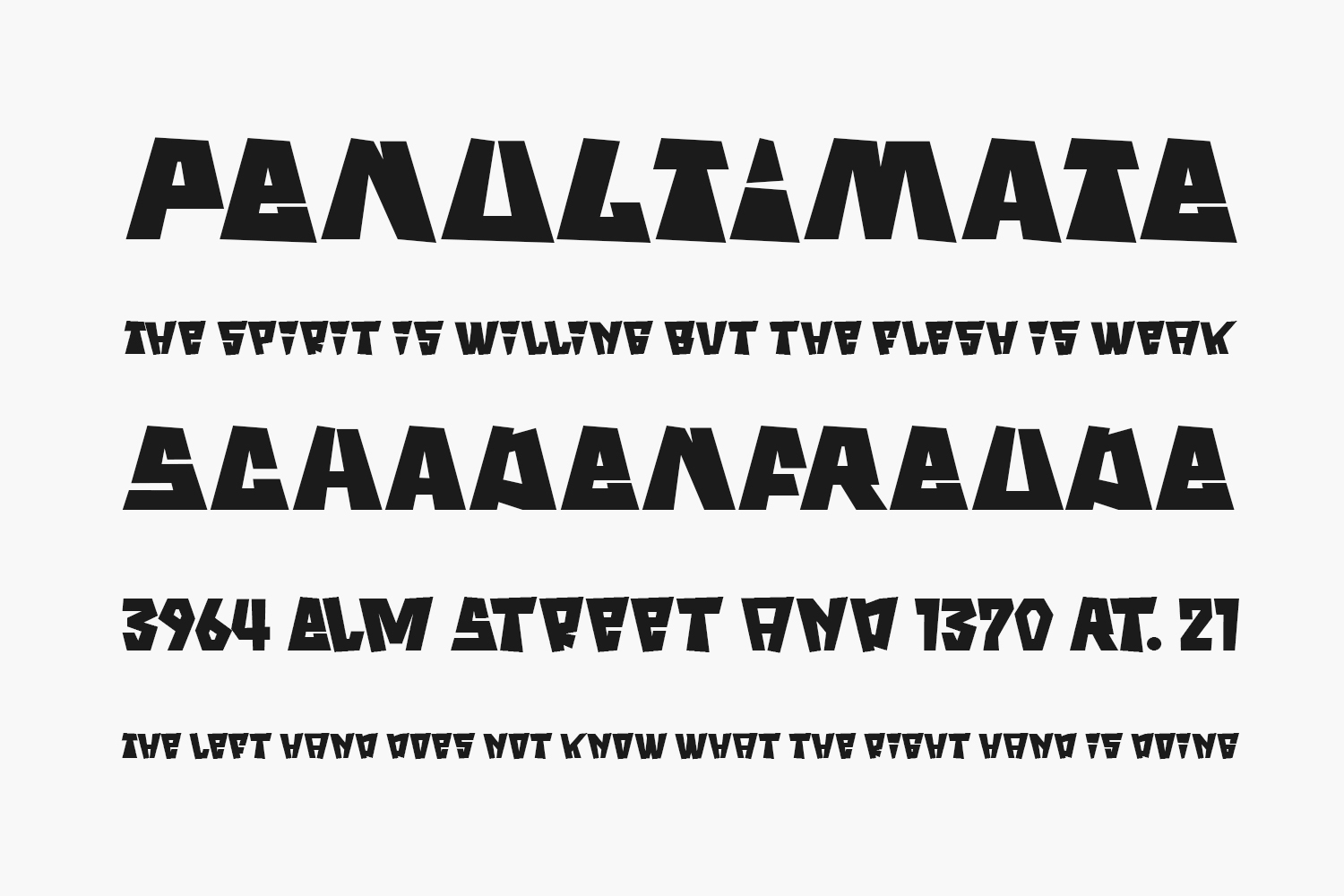
Stone Ocean Free Font is a bold and thick lettered display font. It embodies playfulness and authenticity and is the perfect choice for any children’s activity or school project. Stone Ocean Free Font was designed by Bangkit Tri Setiadi and is free for personal use only. Please purchase the full version for commercial use.